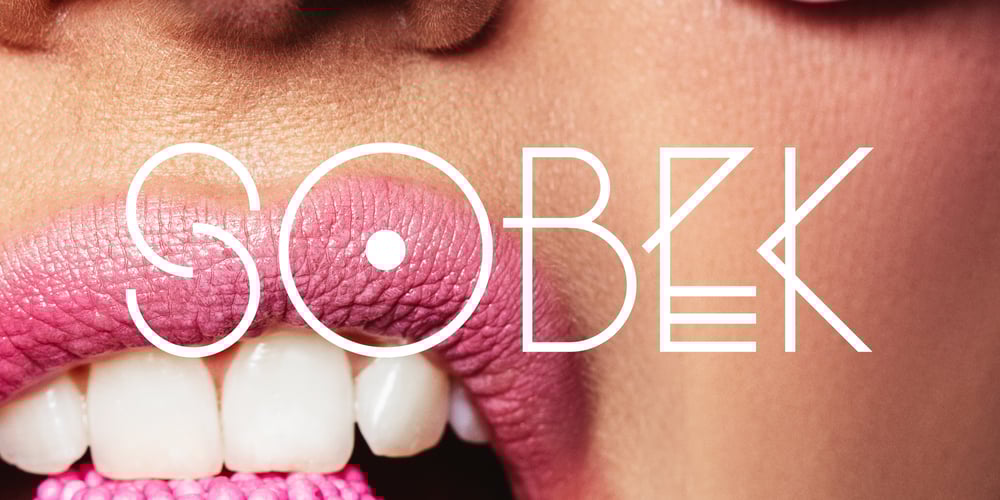
Sobek
Sobek font
Sobek Font Family was designed by Alex Haigh, Dawn Lewandowski and published by HyperFluro. Sobek contains 1 styles and family package options. Introducing Sobek, the font that’s as versatile as your Netflix watchlist. Need a font for TikTok captions? Done. A logo that screams sophistication? Got it. Tattoos that turn heads? Absolutely. Even resumes that make hiring managers do a double-take? Sobek’s got your back.Inspired by the Egyptian crocodile god, Sobek combines sharp corners, excessive lines, and geometrically circular curves into a font that’s like a finely crafted croissant: elegant, a bit edgy, and universally appealing. It’s your go-to for everything from TikTok to tattoos, logos to PowerPoint presentations, websites to digital screens.Investing in Sobek is like investing in a Swiss Army knife for your font needs—versatile, reliable, and always impressive. Plus, it speaks multiple languages, so it’s ready to help you make a statement no matter where you are in the world. Get Sobek and let your designs say, “I’m here, I’m fabulous, and I mean business.” Because let’s face it, standing out has never looked this good.